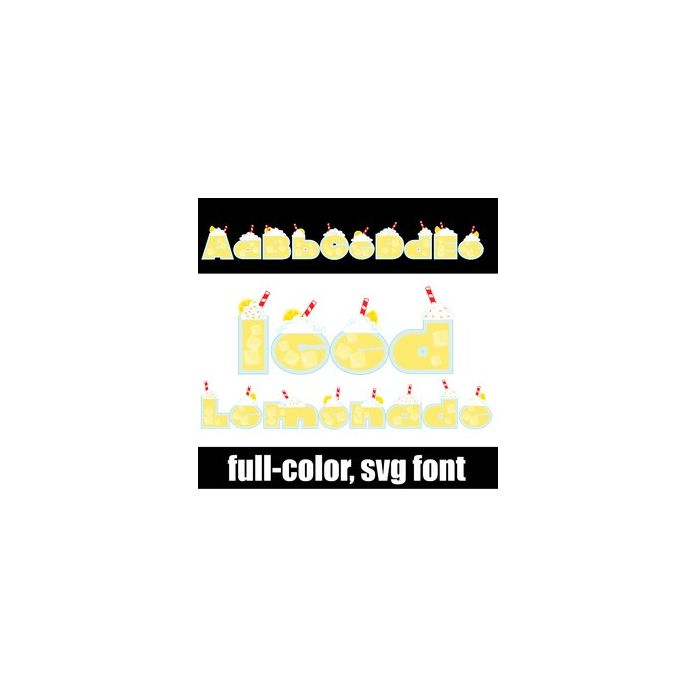
This full-color font features ice cold lemonade topped with whipped cream. This font works best for titles, displays, posters and more. Please note color fonts will show as black in non compatible programs. This font type is compatible with Silhouette Studio.